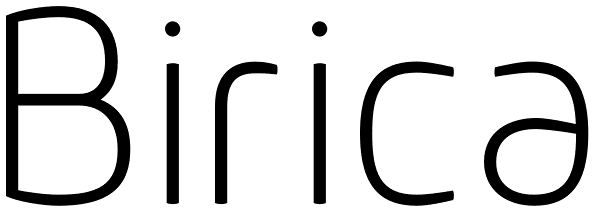
Birica
Birica proposes a more clear view totally versatile for any graphics application imaginable, be it branding, signage or advertising. Undoubtedly, the key word behind the Birica project is "flexibility." It can be used everywhere you need an...